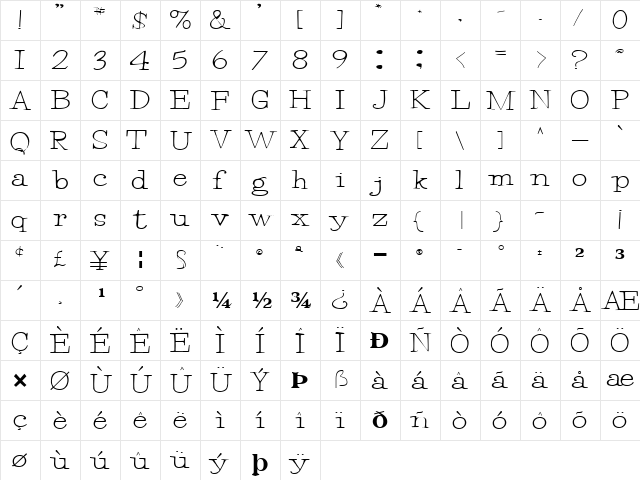
Gantury Regular
Design Context for Gantury Typeface
Gantury is a composed and adaptable typeface that performs quietly and consistently across a wide range of design contexts.